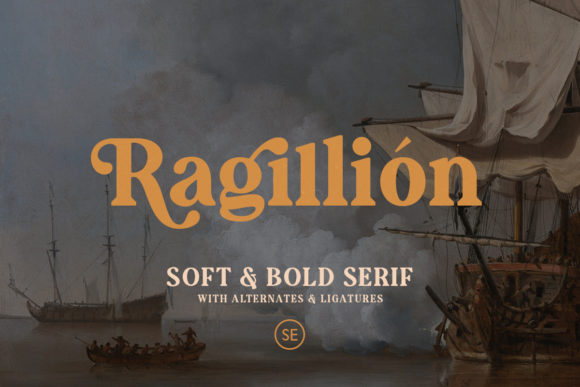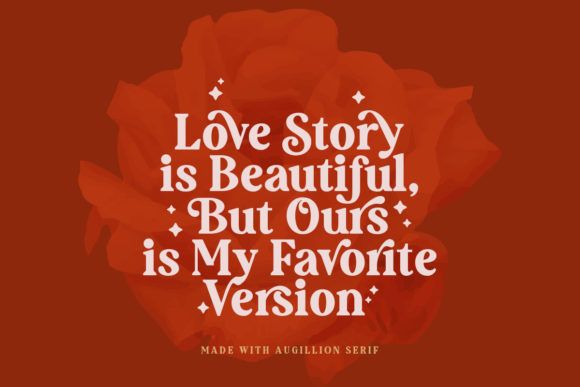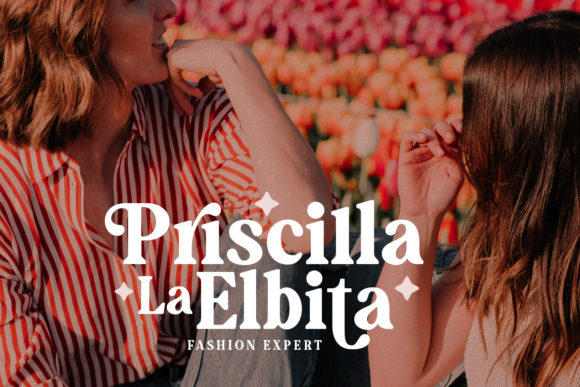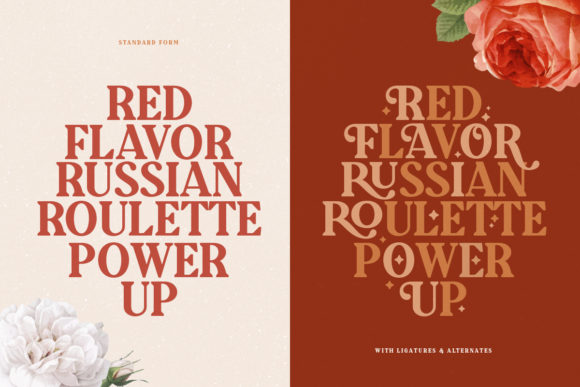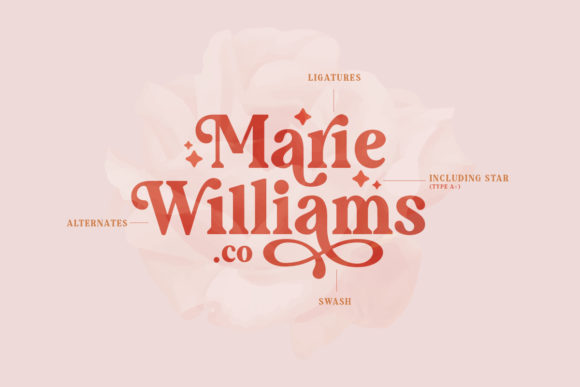
Augillion is a modern and elegant serif font. It can easily be matched to an incredibly large set of projects, so add it to your creative ideas and notice how it makes them stand out!
Augillion Font